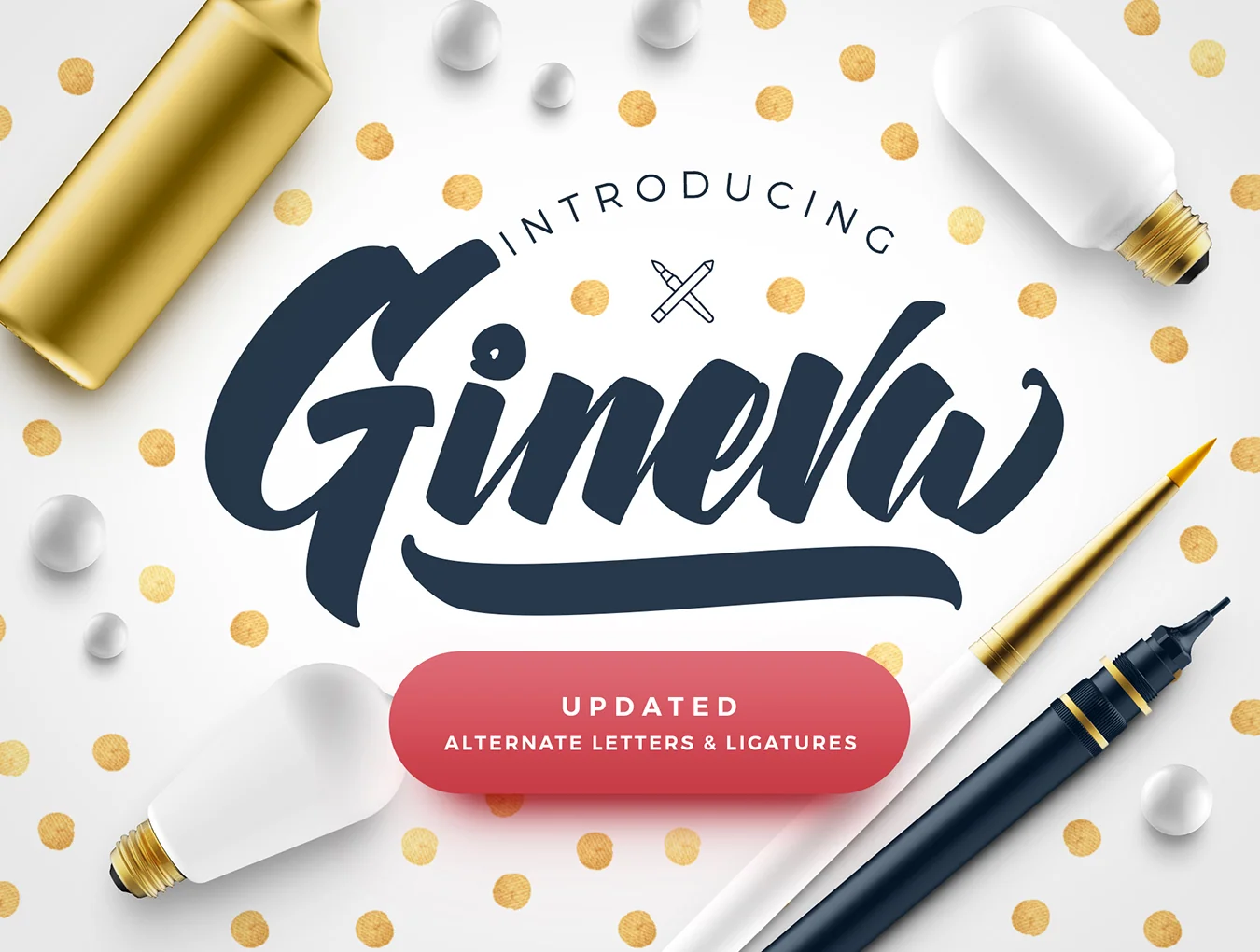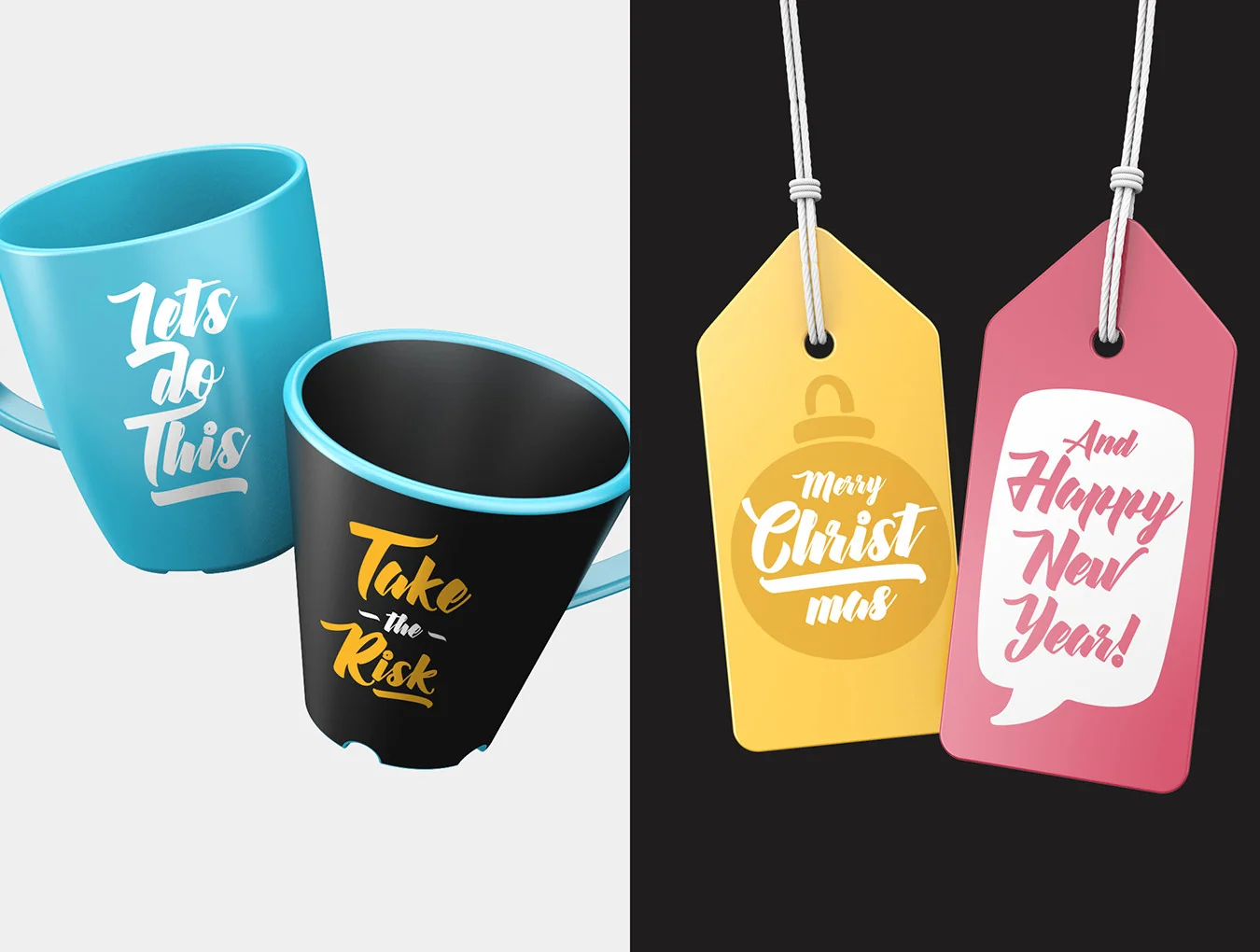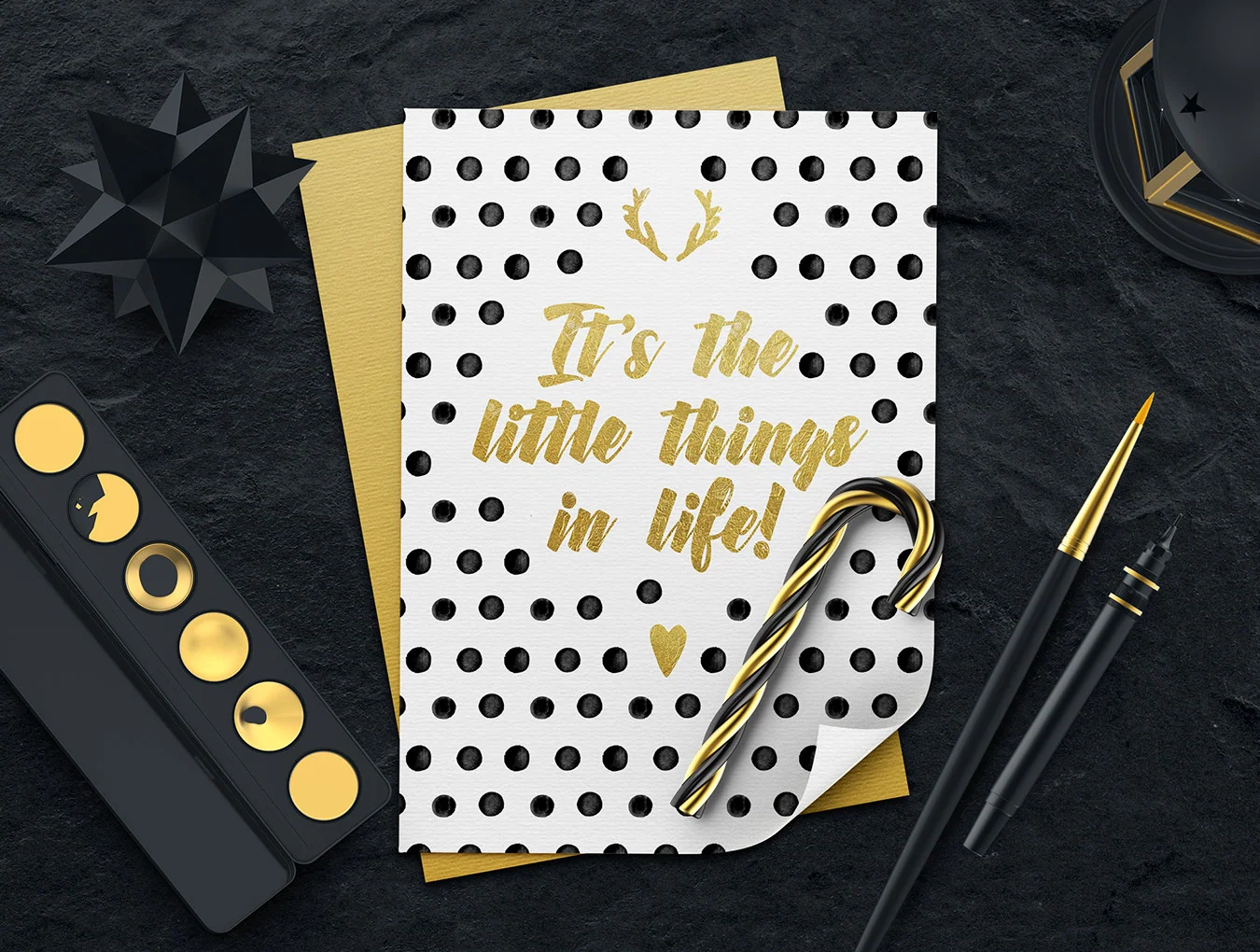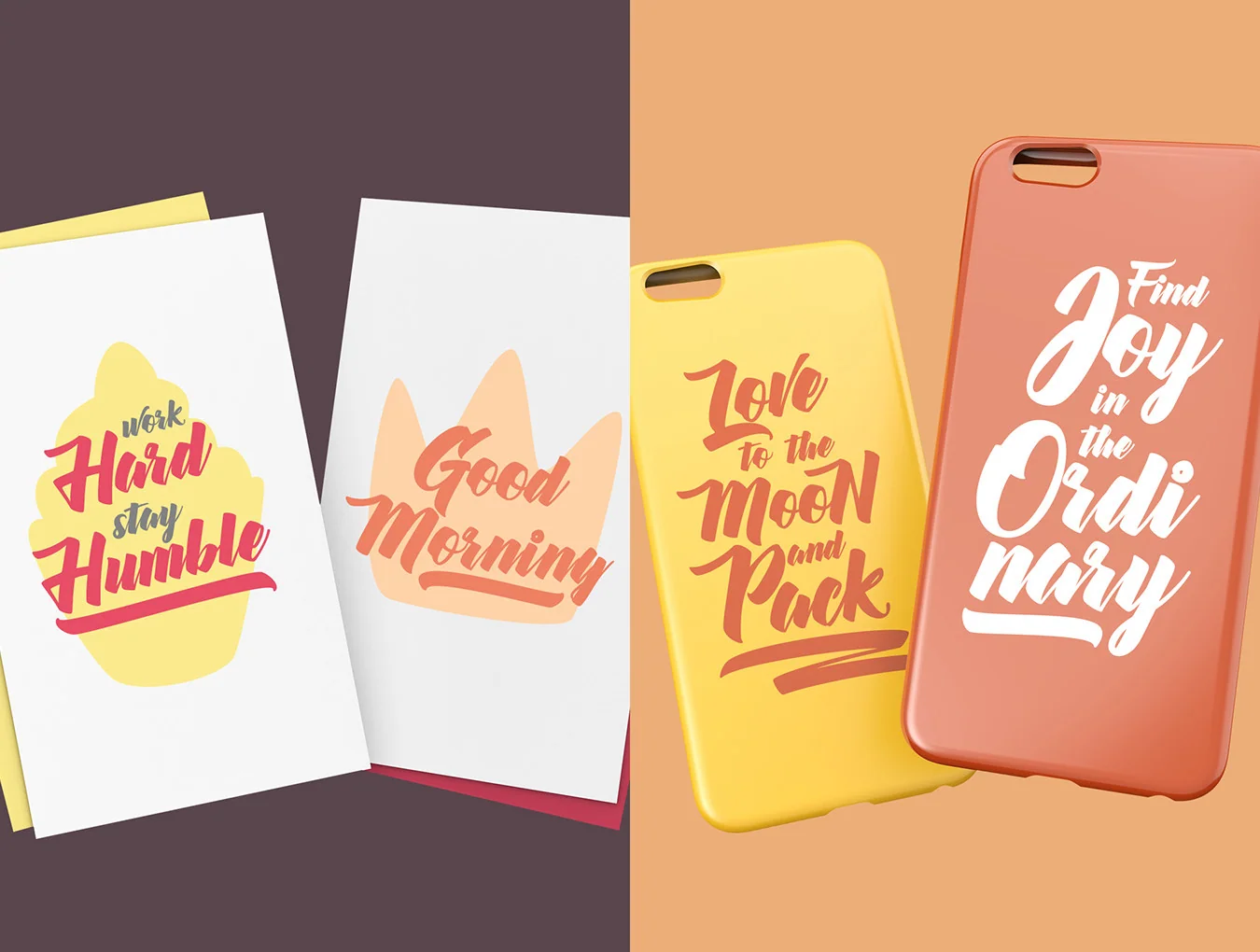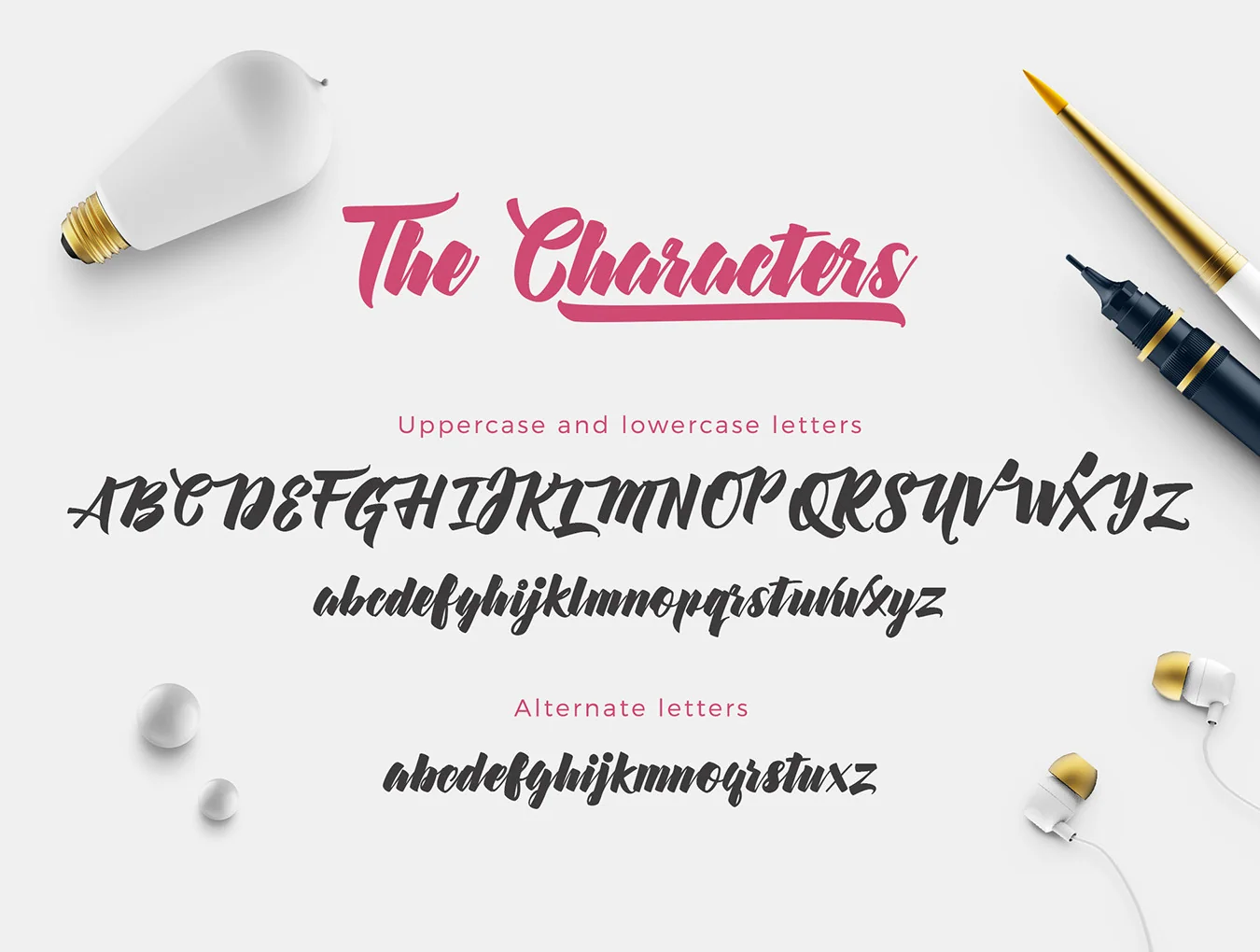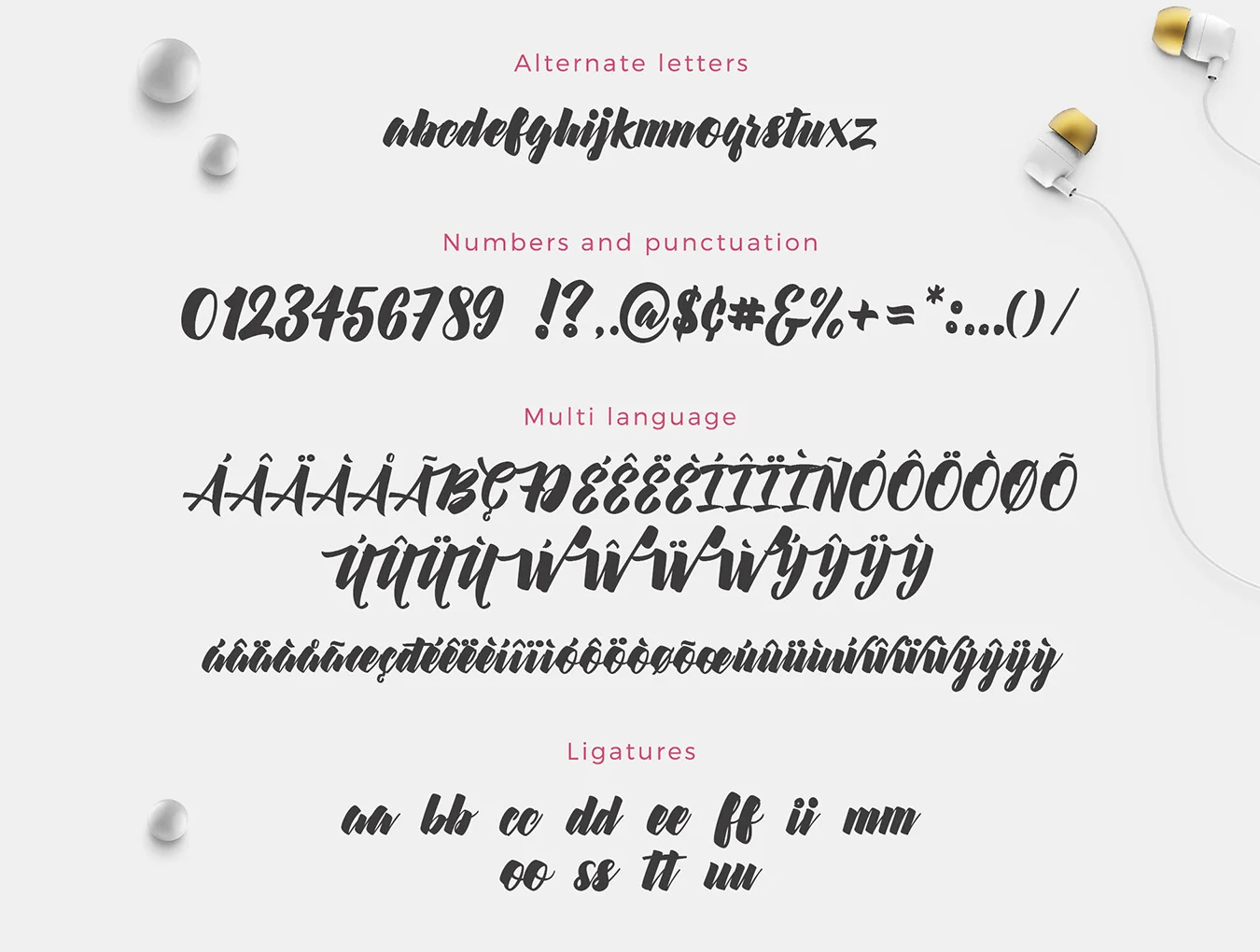
Gineva Script Font
Ideal script brush typeface made just for you!
Numbers and punctuation marks
Splash elements
Capital and small letters
Geneva is a hand-lettered typeface with a refined brush look, ideal for letterheads, apparel, headlines, logos, posters, cards, and more. In OpenType-ready apps, enable Stylistic Alternates and Ligatures or use a glyphs panel. Matching TTF files are included.